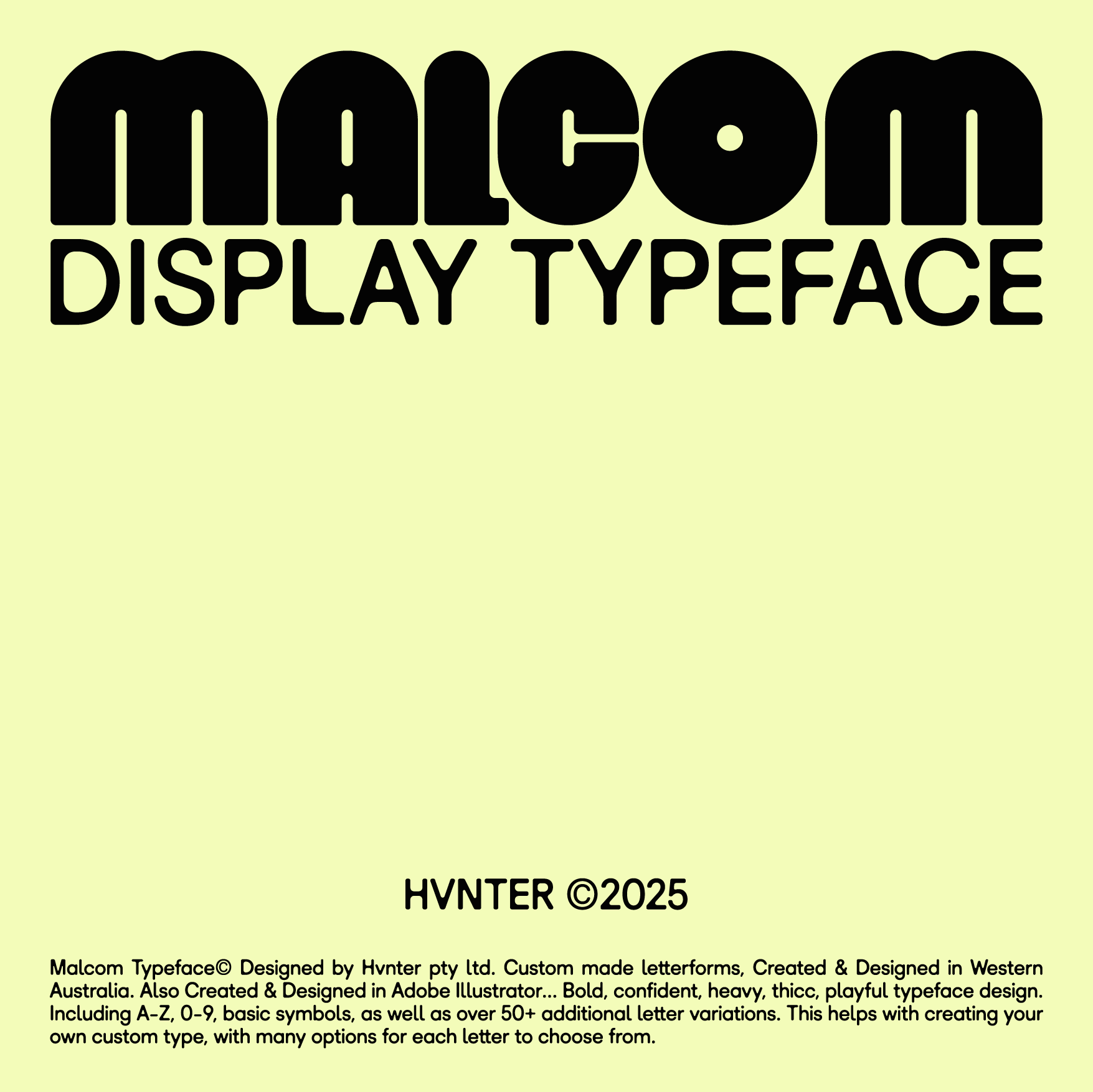
ALL PRODUCTS › Malcom Typeface $15.00 Bold, exciting, playful typeface!Includes: A-Z, 0-9, Basic symbols, +52 letter variations.For Personal & Commercial Use :D Bold, exciting, playful typeface!Includes: A-Z, 0-9, Basic symbols, +52 letter variations.For Personal & Commercial Use :D Purchase Added! Reviews Reviewer Name Review Date Star Rating Description Posted on Etsy Product Show More You Might Also Like Display Type Kit (Vol.01) $20.00 Mend Typeface $25.00 Magik Typeface $25.00 Berrie Typeface $20.00 Mamoth Typeface $20.00